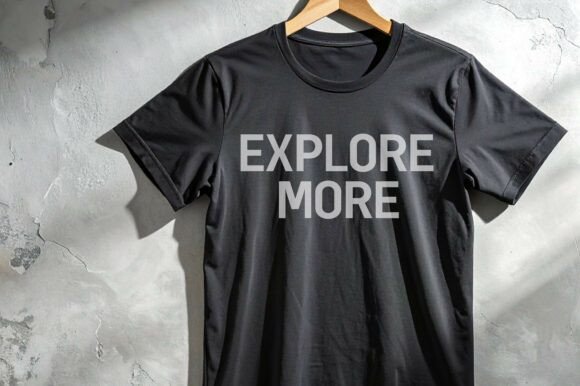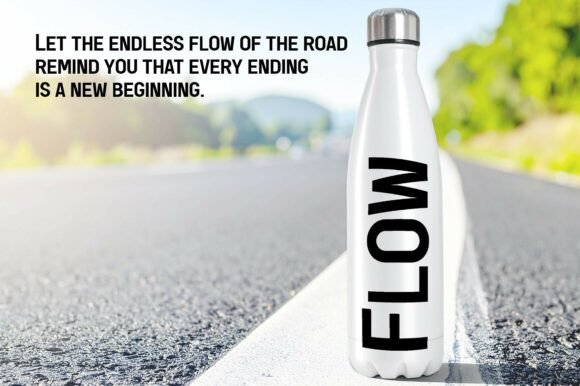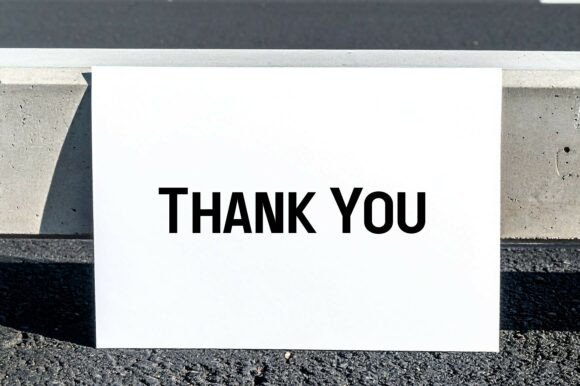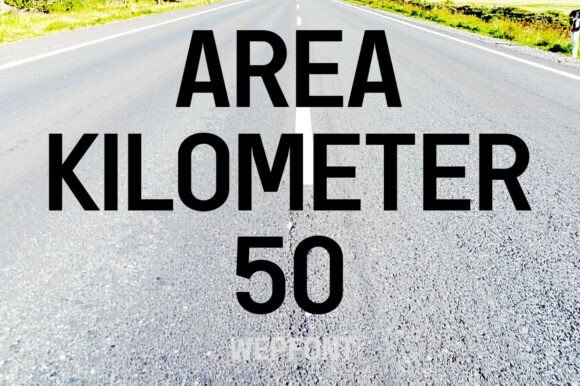
Introducing Area Kilometer 50: The Ultimate Display Font for Clarity and Practicality
Have you ever been working on a design project, and suddenly, you’re stuck on finding the perfect font? I recall a project where I needed a font that could convey essential information clearly and effectively. The client wanted a font that would work seamlessly for signage, mapping, and official documents. After an extensive search, I stumbled upon Area Kilometer 50, a robust and highly legible sans-serif display font that has since become a staple in my design toolkit.
What Makes Area Kilometer 50 Special?
Area Kilometer 50 is designed with strong, uppercase letterforms that feature a clean, open structure, ensuring excellent readability, particularly in informational and directional contexts. Its uniform stroke width and balanced proportions give it a neutral yet authoritative presence, making it ideal for conveying essential information without distraction.
Key Features:
- ✅ Complete set of uppercase letters, numerals, and standard punctuation
- ✨ Precisely engineered for crisp display at various sizes
- ✅ Perfectly suited for projects that demand straightforward communication and a modern, utilitarian aesthetic
- ✅ Exceptional legibility: Area Kilometer 50 shines in situations where clarity is paramount.
- ✨ Versatility: This font works beautifully for signage, mapping, official documents, technical diagrams, and branding that prioritizes function and directness.
- ✅ Ease of use: The font is straightforward to work with, and its OpenType features make it easy to customize.
- ⚠️ Limited stylistic options: As a display font, Area Kilometer 50 is primarily designed for uppercase text, which might limit its use in projects requiring extensive body text.
- 🤔 Not ideal for body text: While it’s an excellent font for headings and titles, it may not be the best choice for lengthy paragraphs.
The design of Area Kilometer 50 was inspired by the need for clear and effective communication in public spaces. The font’s creators aimed to develop a typeface that would excel in signage, mapping, and official documents, while also being easy to read and understand.
| Author | wep – Wahyu Eka Prasetya |
| What is Area Kilometer 50 best used for? | Area Kilometer 50 is ideal for projects that require clear and effective communication, such as signage, mapping, official documents, technical diagrams, and branding. |
| Is Area Kilometer 50 suitable for body text? | No, Area Kilometer 50 is primarily designed for headings and titles. For body text, consider using a font with more traditional proportions and a larger x-height. |
| Does Area Kilometer 50 support OpenType features? | Yes, Area Kilometer 50 supports OpenType features, which allow you to access additional glyphs and stylistic alternates. |
Conclusion
Area Kilometer 50 is a robust and highly legible sans-serif display font that excels in situations where clarity and practicality are essential. With its clean design, uniform stroke width, and balanced proportions, this font is perfect for projects that demand straightforward communication and a modern, utilitarian aesthetic.